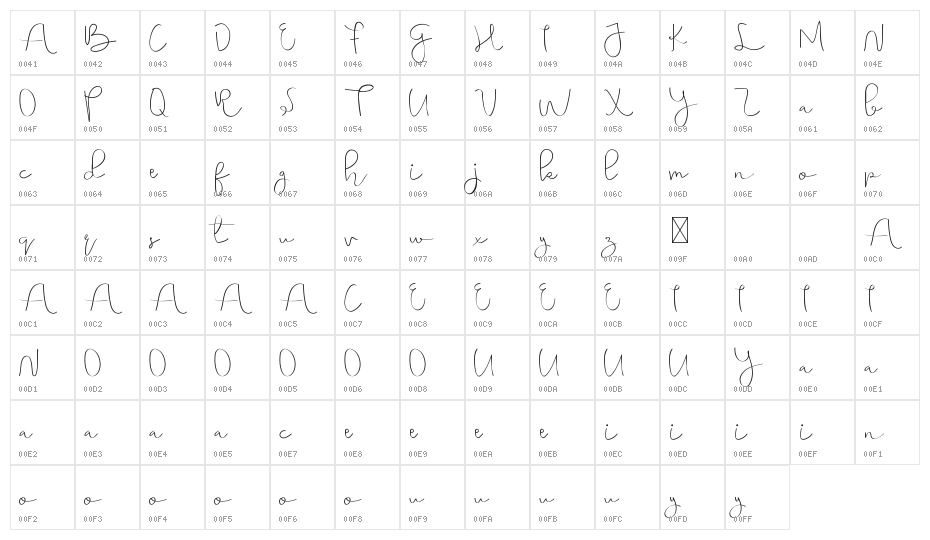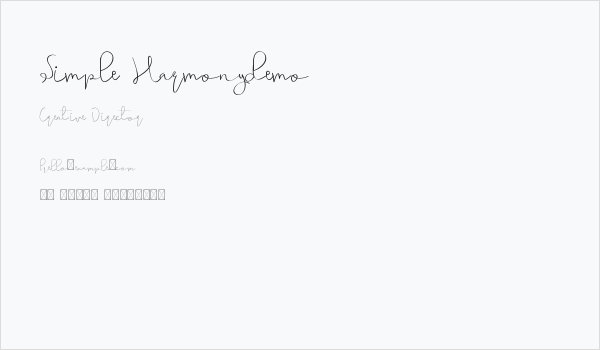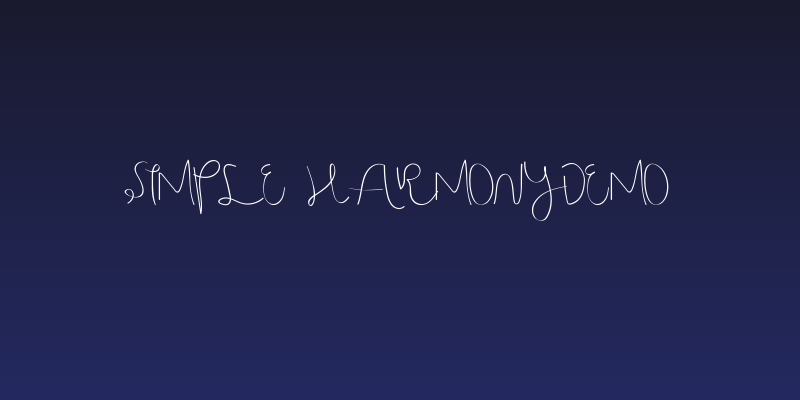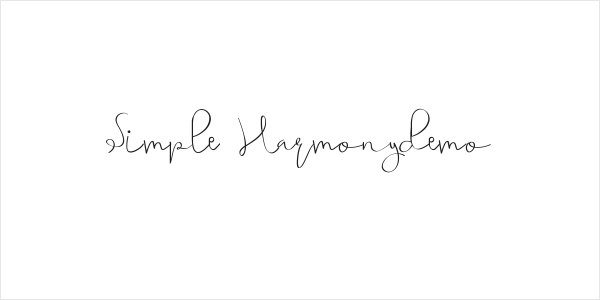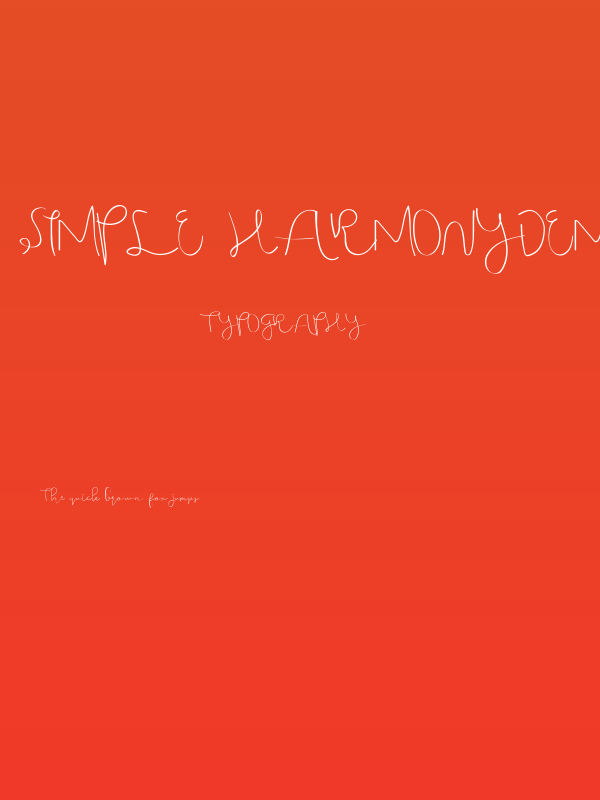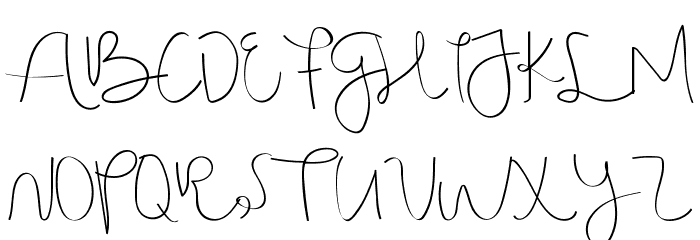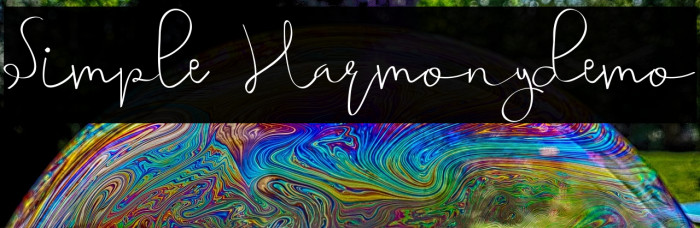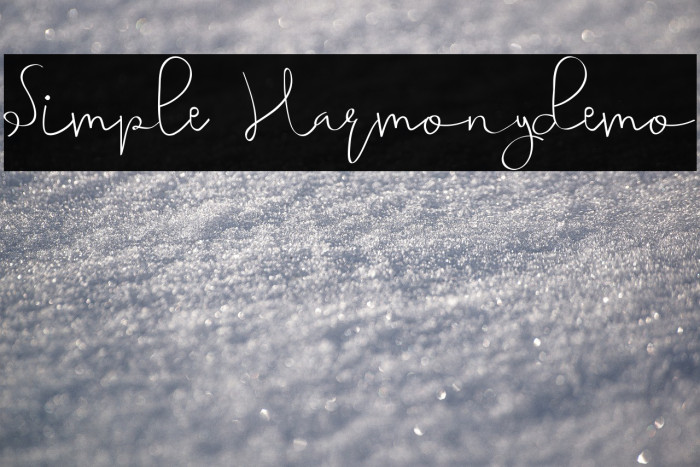
Simple Harmonydemo Font
Simple Harmonydemo Description
This font exhibits a playful and whimsical handwritten style, characterized by its fluid and continuous strokes. The letters are elegantly connected, creating a sense of harmony and movement across the text. The uppercase letters maintain a consistent height, while the lowercase letters vary slightly in size, adding a dynamic touch. The overall appearance is casual yet refined, making it suitable for projects that require a personal and approachable feel. The strokes are thin, contributing to a light and airy aesthetic, while the loops and curves add a touch of sophistication.
| Overall Style | Whimsical |
| Proposed Projects | Ideal for wedding invitations, greeting cards, personal branding, and creative projects that require a personal touch. |